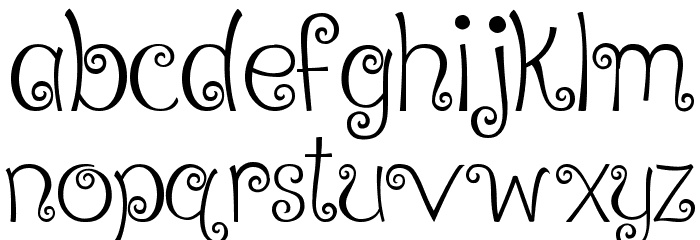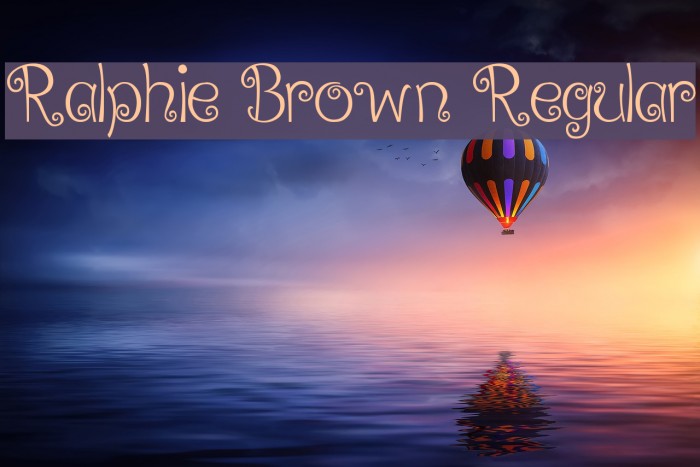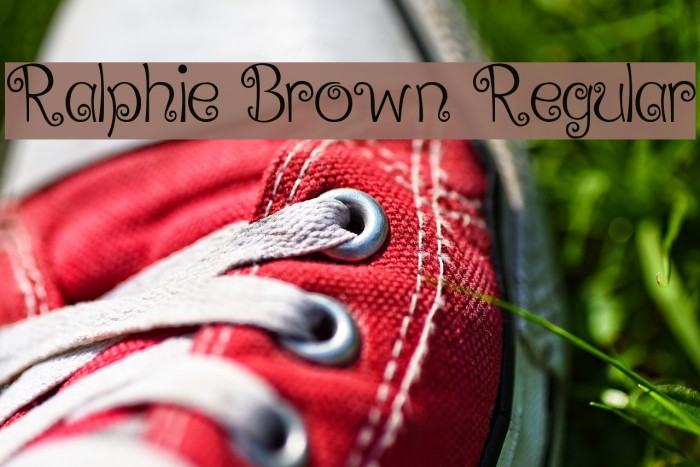
Ralphie Brown Regular Font
This font features a whimsical and playful design, characterized by its curly and decorative elements. The uppercase letters are bold and have a unique flair with swirls and loops that add a sense of fun and creativity. The lowercase letters maintain a consistent style, with some characters featuring distinctive curls and hooks. The numerals are bold and rounded, complementing the overall playful aesthetic. Special characters are designed with similar decorative elements, making them stand out. This font is ideal for projects that require a touch of whimsy and creativity.
A whimsical and playful font with curly, decorative elements.
- Proposed Projects: Ideal for children's books, greeting cards, playful branding, and creative posters.
- Overall Style: Playful, Whimsical
- Use Case: Headlines, Logos, Creative projects